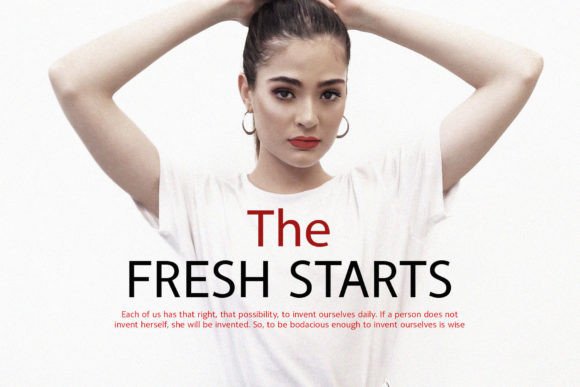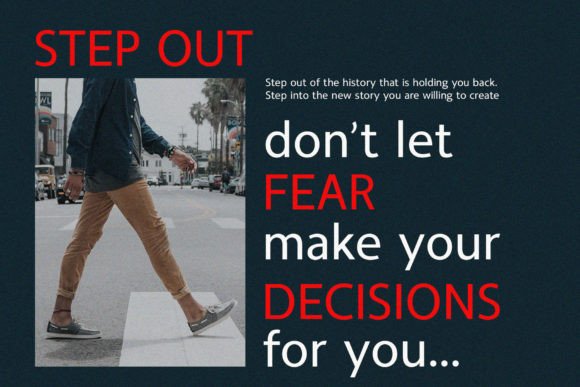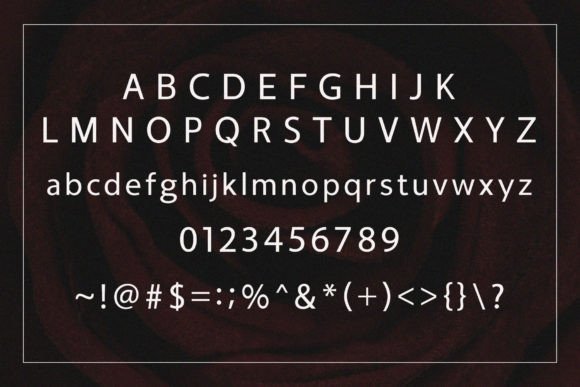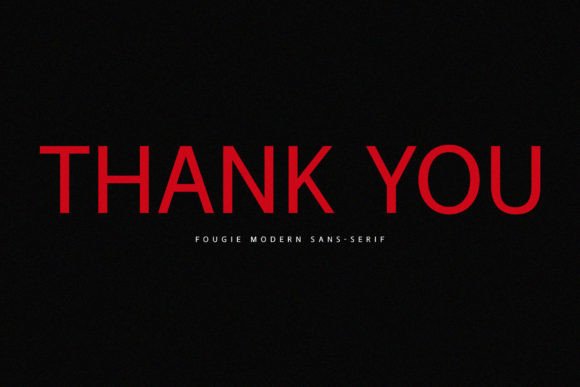
Fougie Font: Elevate Your Designs with Elegance and Sophistication
In the world of typography, a font can make or break the visual appeal of a design. For designers and crafters looking to add a touch of elegance and sophistication to their work, the Fougie font is an excellent choice. This modern sans serif font is perfect for a wide range of applications, from websites and logos to magazines and social media posts.
The Fougie Font: A Classy and Modern Sans Serif
Fougie is a carefully crafted font that exudes class and sophistication. Its clean lines, precise curves, and balanced proportions make it an ideal choice for designers seeking a modern and elegant look. The font’s sans serif design ensures that it remains versatile and adaptable, suitable for various design projects and applications.
One of the key benefits of the Fougie font is its versatility. Its modern design and elegant aesthetic make it perfect for:
- Websites: Use Fougie to create a professional and visually appealing website that showcases your brand’s personality.
- Logos: Create a lasting impression with a custom logo designed using the Fougie font.
- Magazines: Add a touch of sophistication to your magazine layouts with the Fougie font.
- Social Media Posts: Elevate your social media presence with eye-catching posts designed using Fougie.
- And many more: Fougie is suitable for various design projects, including brochures, flyers, posters, and more.
Why Choose Fougie Font?
With so many fonts available, why choose Fougie? Here are a few compelling reasons:
- Elegance: Fougie adds a touch of sophistication and elegance to any design.
- Modernity: The font’s modern design ensures that your work looks contemporary and fresh.
- Versatility: Fougie is suitable for a wide range of design applications and projects.
- Easy to Read: The font’s clean lines and balanced proportions make it easy to read, even at small sizes.
Tips for Using Fougie Font Effectively
To get the most out of the Fougie font, consider the following tips:
- Pair with Other Fonts: Experiment with pairing Fougie with other fonts to create a unique and visually appealing typography.
- Adjust Font Sizes: Play with different font sizes to create visual hierarchy and add emphasis to specific design elements.
- Use Colors Wisely: Choose colors that complement the Fougie font and enhance the overall aesthetic of your design.
In conclusion, the Fougie font is an excellent choice for designers and crafters looking to add a touch of elegance and sophistication to their work. Its modern sans serif design, versatility, and ease of use make it perfect for a wide range of design applications. Whether you’re working on a website, logo, magazine, or social media post, Fougie is sure to elevate your designs and leave a lasting impression.